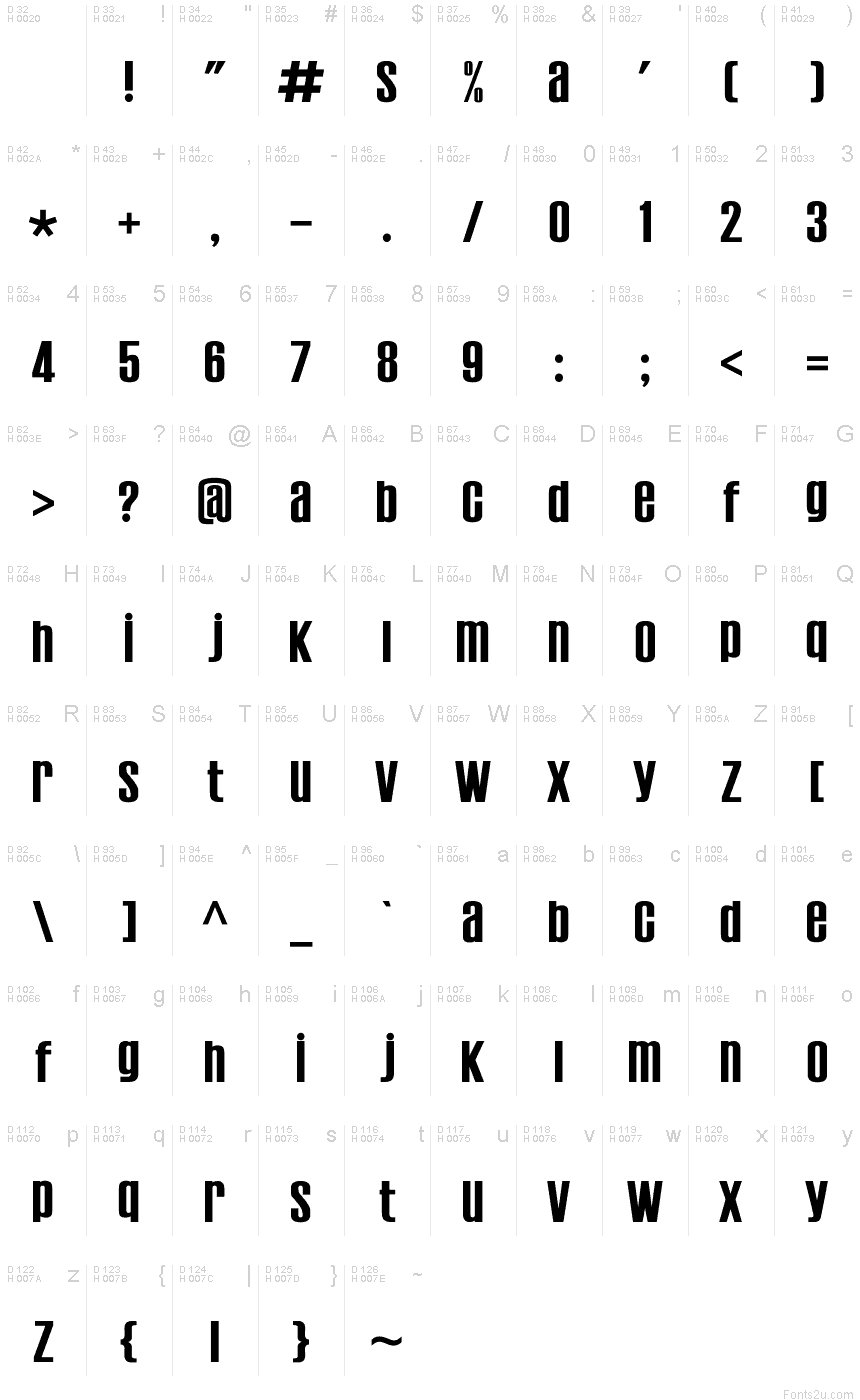
Establo
Establo font by Barmee.com is a free modern display typeface with a bold, blocky swagger. Its tall, compressed letters and chunky verticals create a dense, rhythmic texture, while the rounded corners keep it from feeling too harsh. The result is a striking, almost industrial look that still reads smoothly at a glance.
Using Establo, headlines slam onto the page with confident weight, making it a natural fit for posters, logos, album covers, gig flyers, bold packaging, and editorial titles. This free font works best set large with generous letter spacing; pair it with a clean geometric sans for body copy to let Establo do the heavy lifting up top.